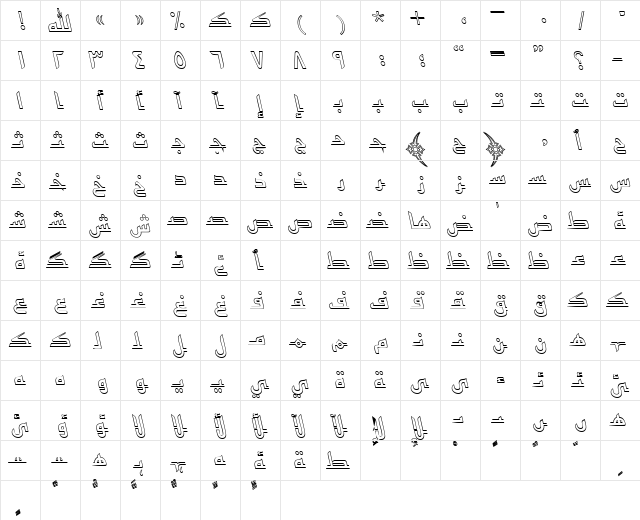
UrduKufiOutlineSSK Italic
Design Context for UrduKufiOutlineSSK Typeface
UrduKufiOutlineSSK is built around its visual character rather than neutral utility — its distinctive forms are designed to make an impression at display sizes. The dynamic lean of this cut emphasises speed and emphasis in any layout.
Font Pairing: Pair with a clean neutral sans-serif for body copy to let UrduKufiOutlineSSK's character lead without overwhelming the composition.
Pro Tip: Use UrduKufiOutlineSSK exclusively at display sizes — it was designed to be seen, not read at length. Let a neutral companion handle body copy.